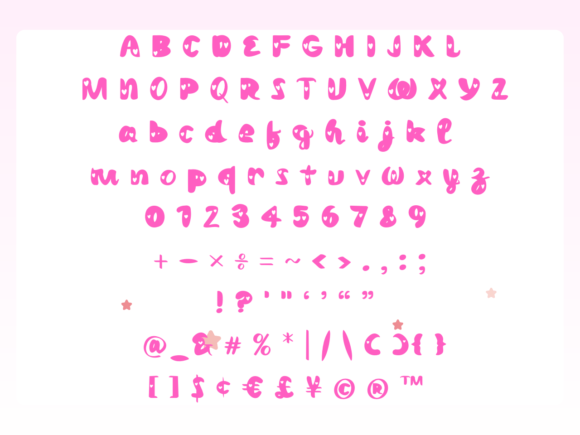
Introduction to Mayda Font
Have you ever been inspired by the unique characteristics of someone’s handwriting? The way a single line can convey emotion, the fluidity of movement, and the personality that shines through in every stroke? That’s exactly what sparked the creation of the Mayda Font, a revolutionary design resource that brings handwriting to life in a digital format.
As a designer, you know the value of standing out in a crowded market. That’s why Mayda Font is a game-changer for creative projects that require a touch of personality. With its high-quality, transparent background, and unique brush-style design, this font is sure to elevate your work and make it truly unforgettable.
Key Features of Mayda Font
- High-quality, professional design resource ideal for creative projects
- Comes with a transparent background, allowing for seamless integration into designs
- Designed with attention to detail, resulting in a crisp and clear font
- Includes a range of font sizes and resolutions to accommodate various design needs
- Perfect for use in digital and print projects, including logos, graphics, and more
Honest Review: Mayda Font
I recently stumbled upon the Mayda Font, a free download that caught my attention as a design resource for a creative project. Upon closer inspection, I was impressed by its unique and elegant style.
- High-quality design: The Mayda Font features a clean and modern aesthetic that’s perfect for various design applications.
- Transparent background: The font has a transparent background, making it easy to combine with other design elements.
- Limited font family: While the Mayda Font is elegant, it’s not part of a larger font family, which might limit its usability in certain design projects.
- No bold or italic variants: The font lacks bold and italic variants, which might make it less versatile for certain design applications.
Overall, I’m impressed with the Mayda Font’s design and its potential uses in various creative projects. However, its limitations should be considered when deciding whether to use it as a primary font or to supplement other fonts in your design arsenal.
Mayda Font is ideal for a wide range of creative projects, including logos, brochures, and social media graphics. Its high quality and versatility make it a great choice for designers and non-designers alike. Whether you’re working on a personal or professional project, Mayda Font is a valuable design resource to have in your toolkit.